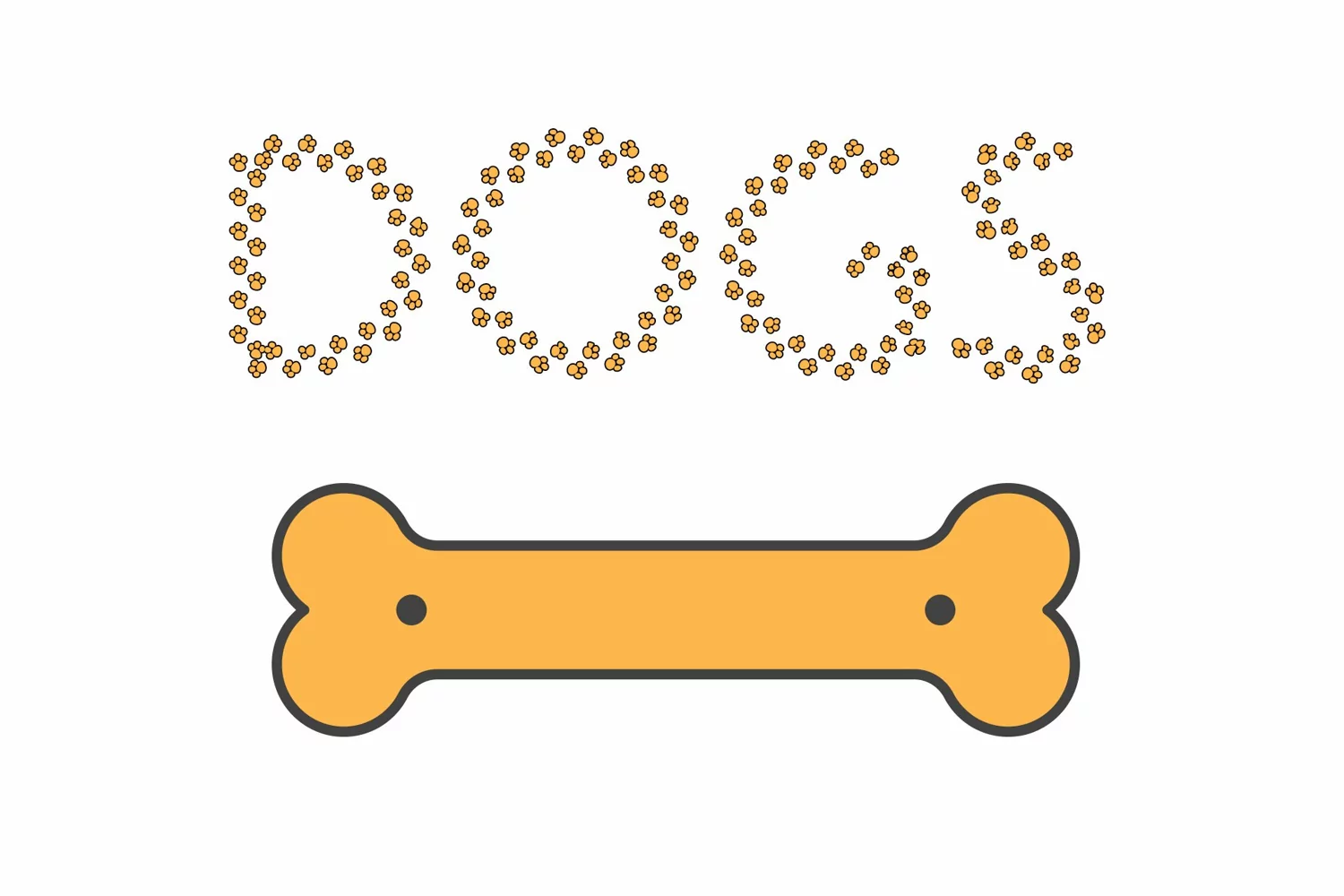
Puppy Paw display dog font.
Puppy is a cute decorative font. Each character is composed of puppy paw prints.
Great pet font for posters, logos, packaging, school and education projects, websites, T-Shirts and more.